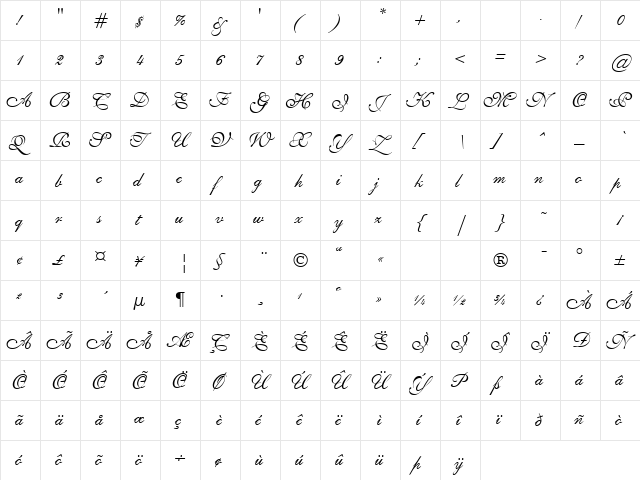
GE Sheer Script Regular
Design Context for GE Sheer Script Typeface
GE Sheer Script flows with the natural rhythm of handwritten lettering, making it ideal for designs that call for warmth and personal expression.
Font Pairing: Combine GE Sheer Script with a simple geometric sans for maximum contrast — the tension between flowing curves and clean structure is a classic typographic pairing.
Pro Tip: Pair GE Sheer Script with a clean sans-serif for supporting text. The contrast between fluid script and geometric structure creates an elegant typographic hierarchy.